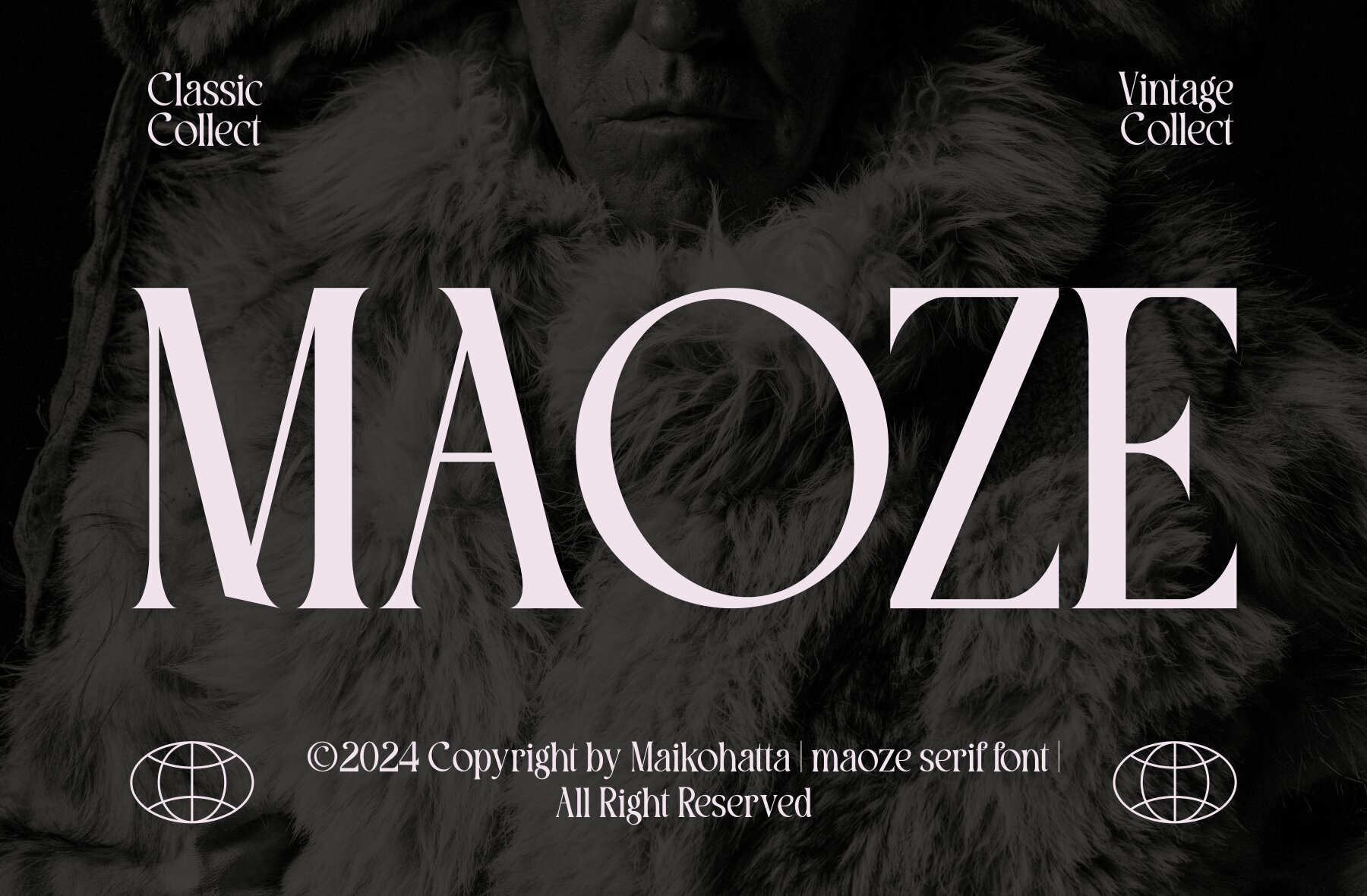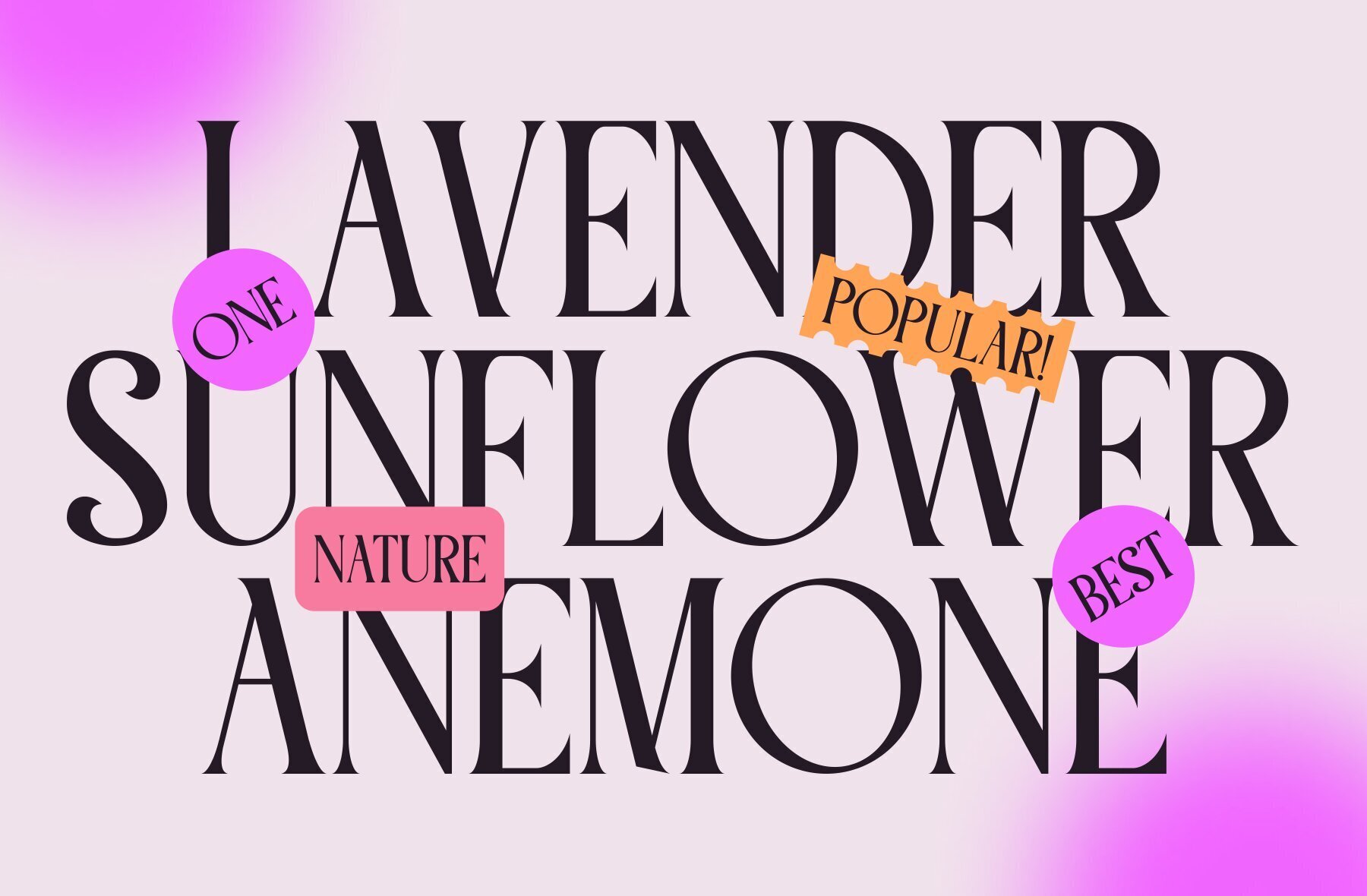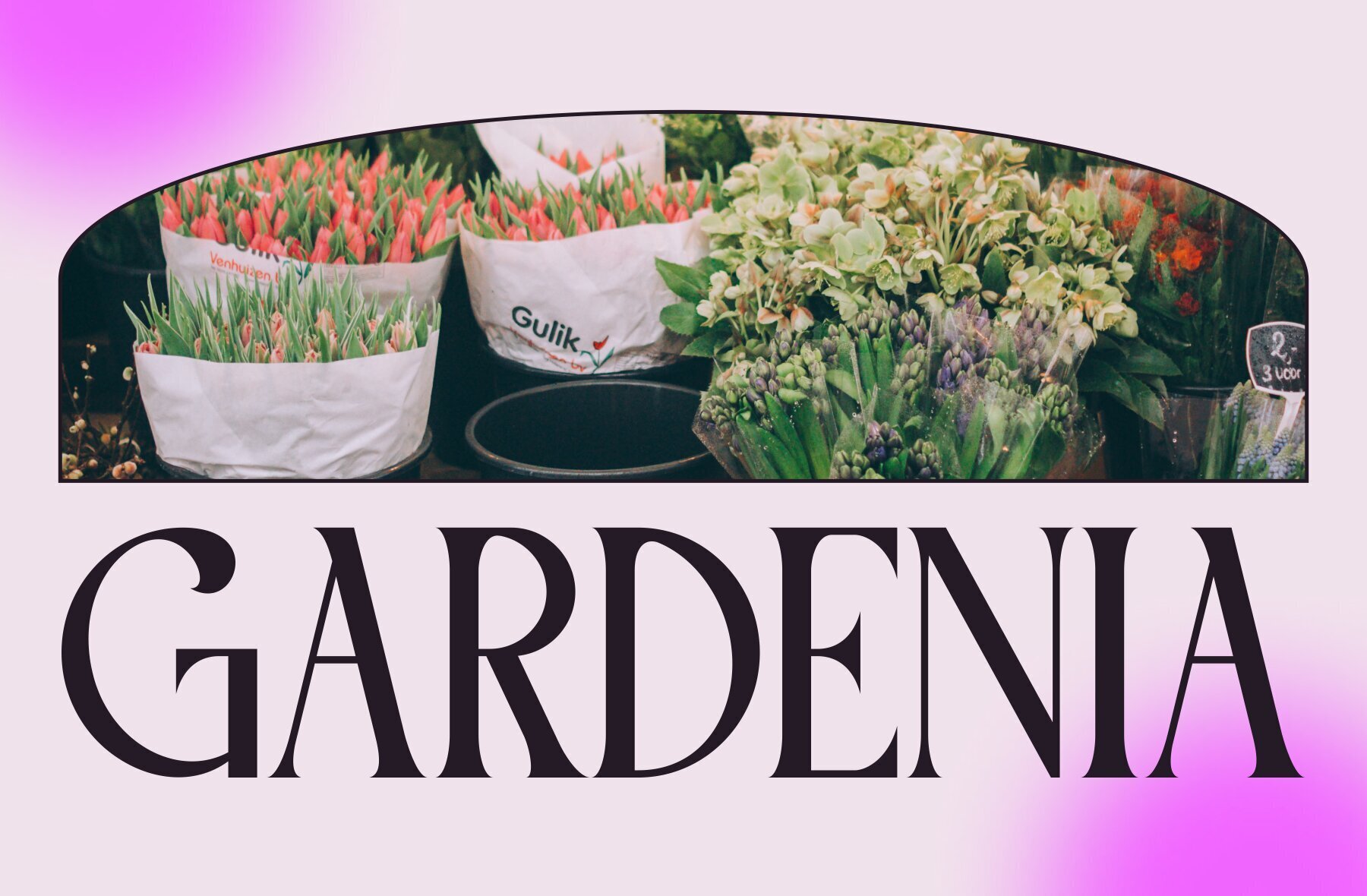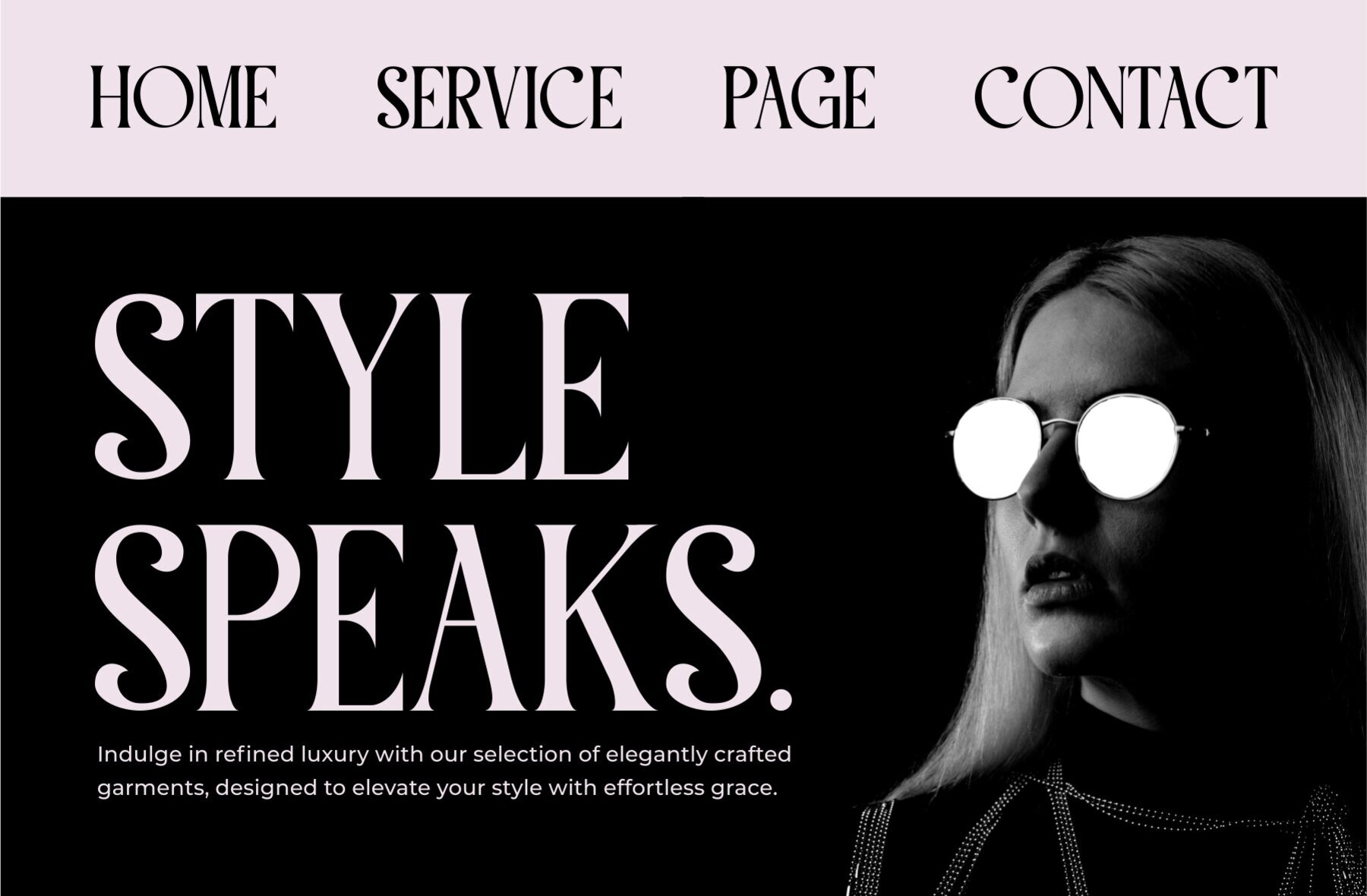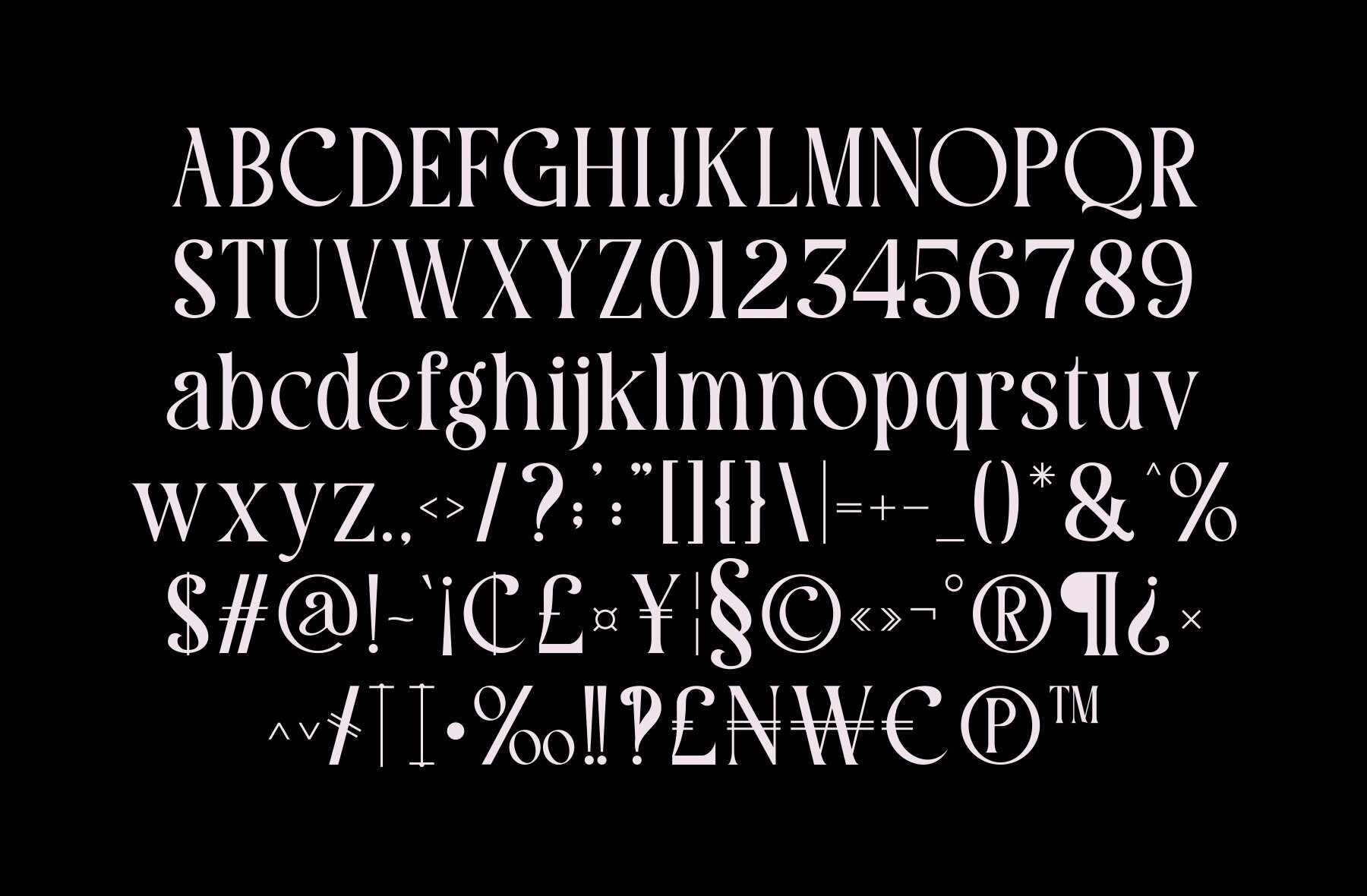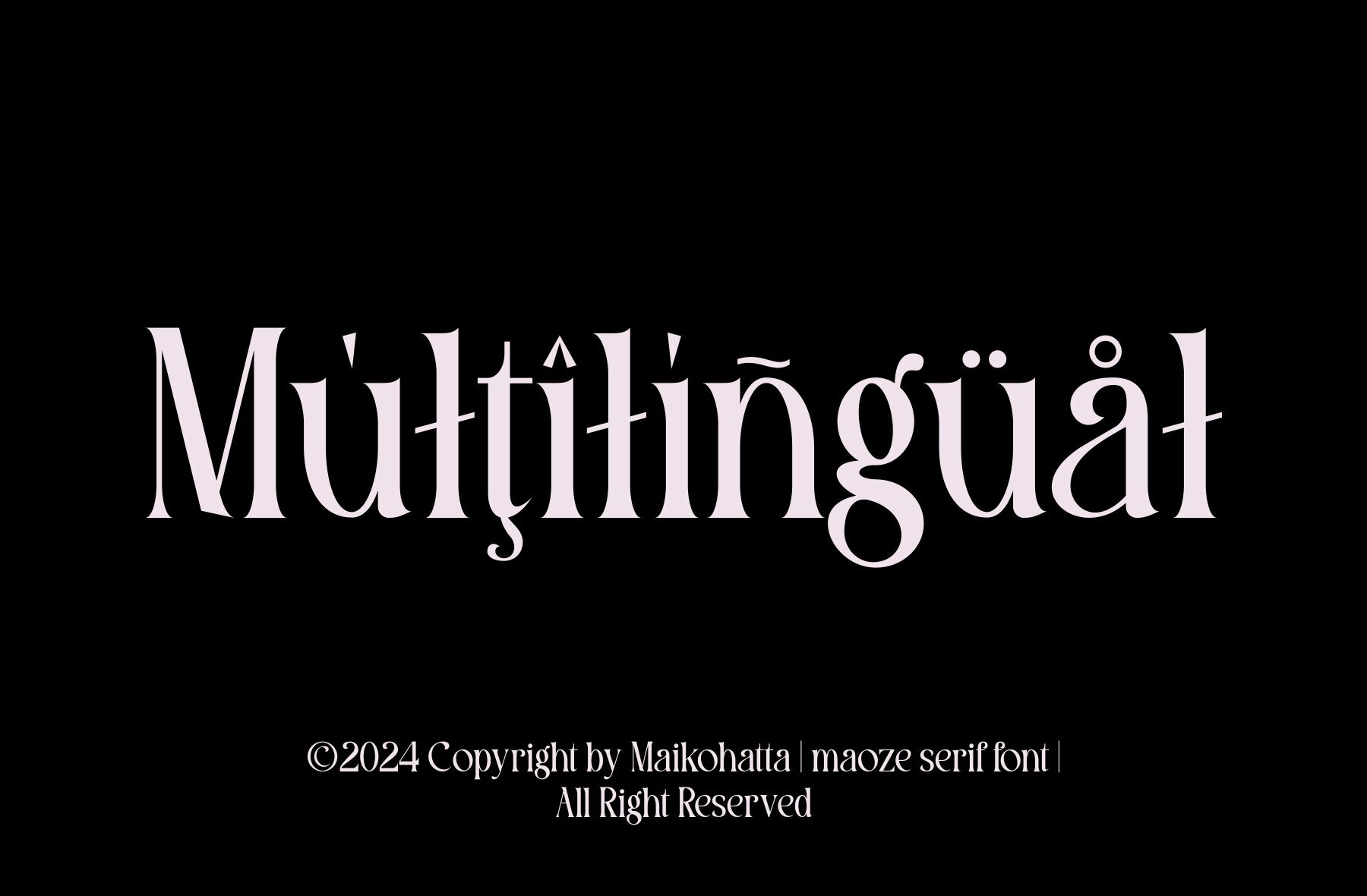
Maoze Font
Maoze Regular
Maoze is a bold, high-contrast serif typeface that elegantly blends traditional transitional forms with a modern twist. Its pronounced serifs and dynamic stroke variations create a refined, luxurious presence, making it ideal for editorial and display purposes. The combination of classic structure and contemporary style ensures versatility and impact across a wide range of graphic design applications.Maoze: High-Contrast Serif with Contemporary Flair